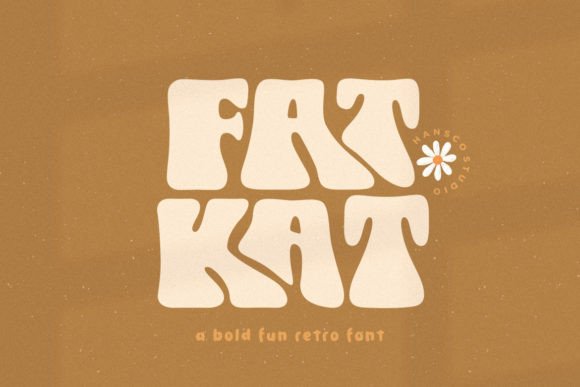
Introducing Fat Kat Font, the perfect choice for anyone looking to create bold and eye-catching hashtags. This display font is the brainchild of renowned font creator, HansCo, who has imbued it with a unique retro vibe that is both cool and funky.
With Fat Kat Font, you'll be able to create stunning designs that stand out from the crowd. Its bold, chunky letters make a powerful statement, while its modern twist ensures that it never looks outdated. Whether you're creating logos, posters, or social media graphics, Fat Kat Font is sure to help you make a statement.
But Fat Kat Font isn't just about looks. It's also incredibly versatile and easy to use. Thanks to its clean lines and clear spacing, it can be read at any size, making it perfect for a range of applications. Plus, it comes with a range of alternate characters, allowing you to customize your designs even further.
So why not let yourself be amazed by Fat Kat Font? Whether you're a graphic designer, marketer, or social media influencer, it's the perfect tool for making your message heard. With its bold, retro style and modern twist, it's sure to capture the attention of anyone who sees it.